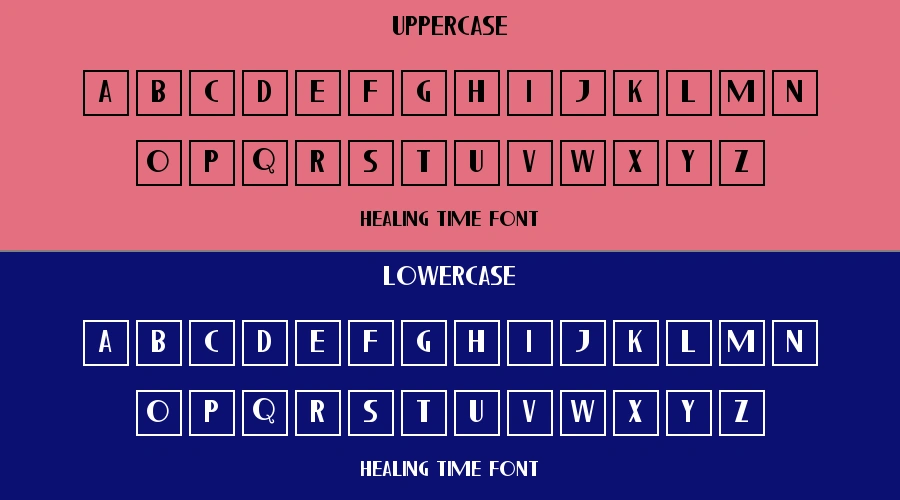
About Healing Time Font
Designed with precision, Healing Time Font merges distinctive details with design integrity in every character. This versatility makes it particularly effective for legal documents, where consistency and aesthetic excellence directly impact communication quality. Each letterform demonstrates meticulous craftsmanship.
Technical excellence shines through elements like width contrast and stylistic alternates, enhancing typographic versatility. In product names settings, Healing Time Font proves its worth through superior consistency. The thoughtful execution of descender depth and personality ensures professional results.